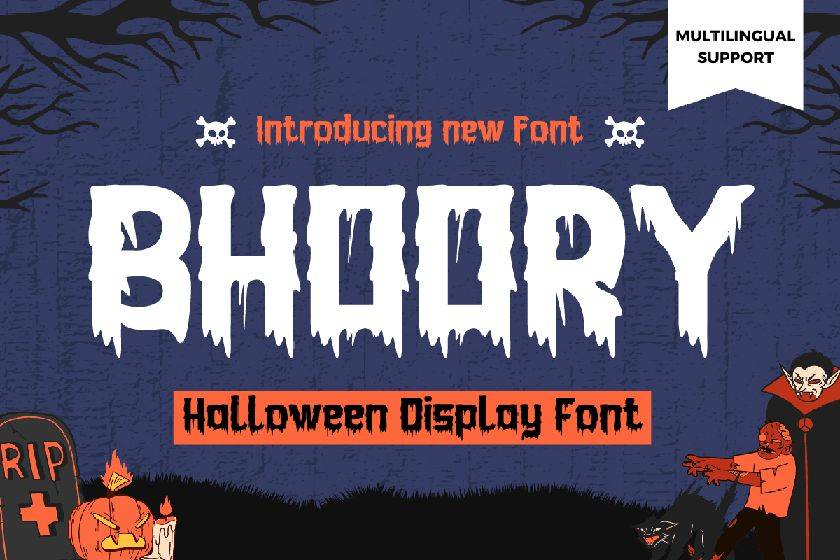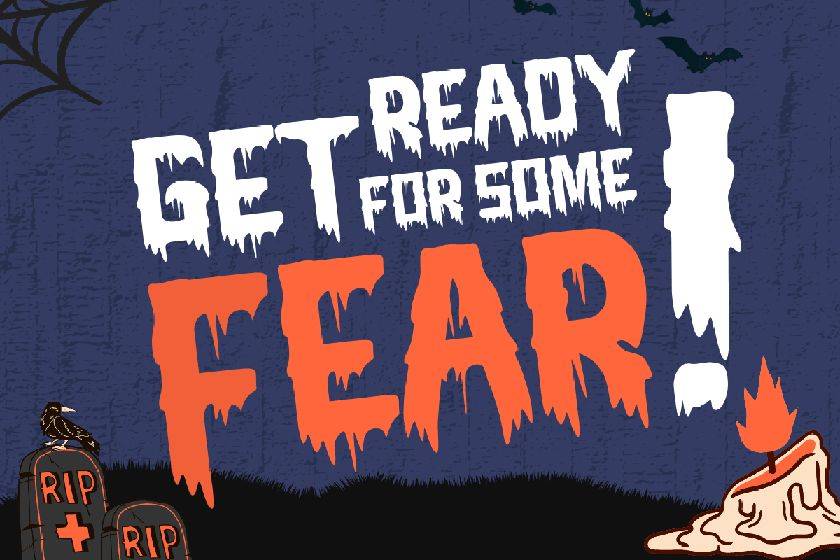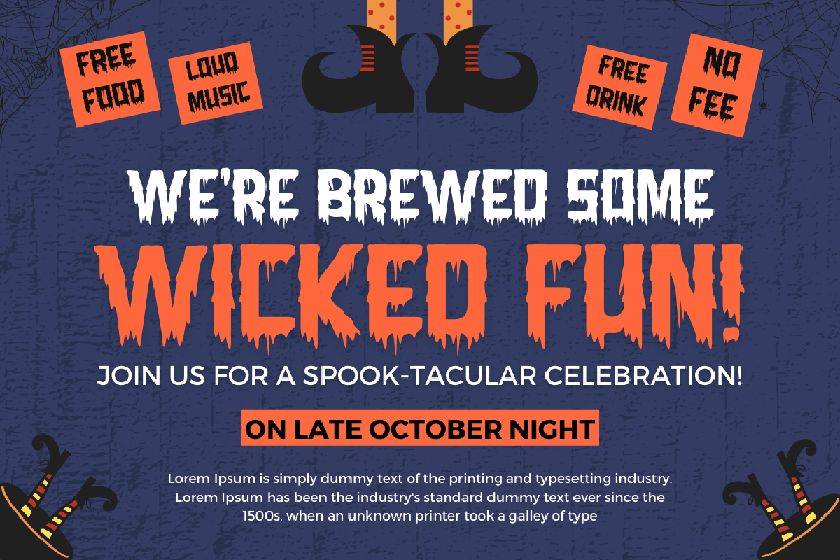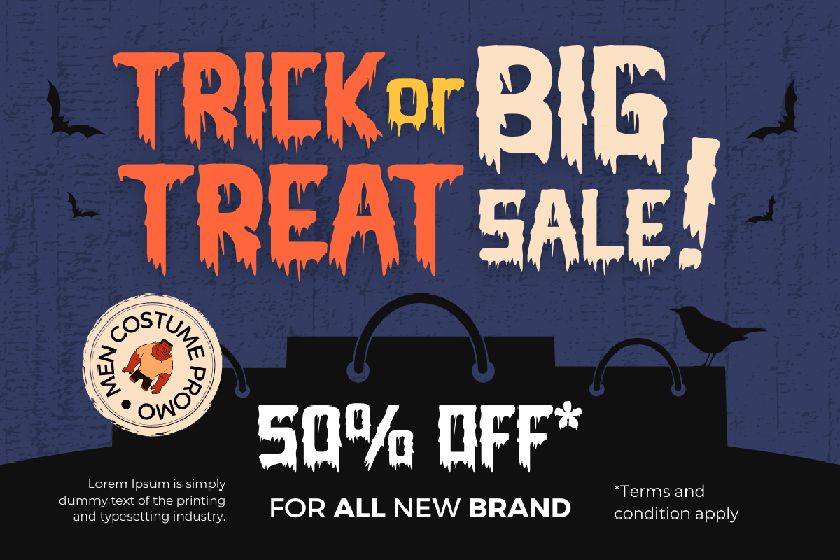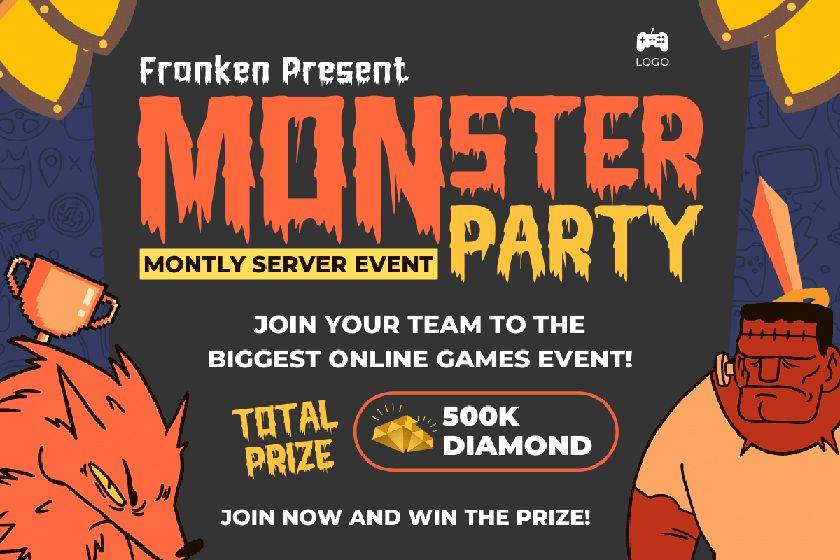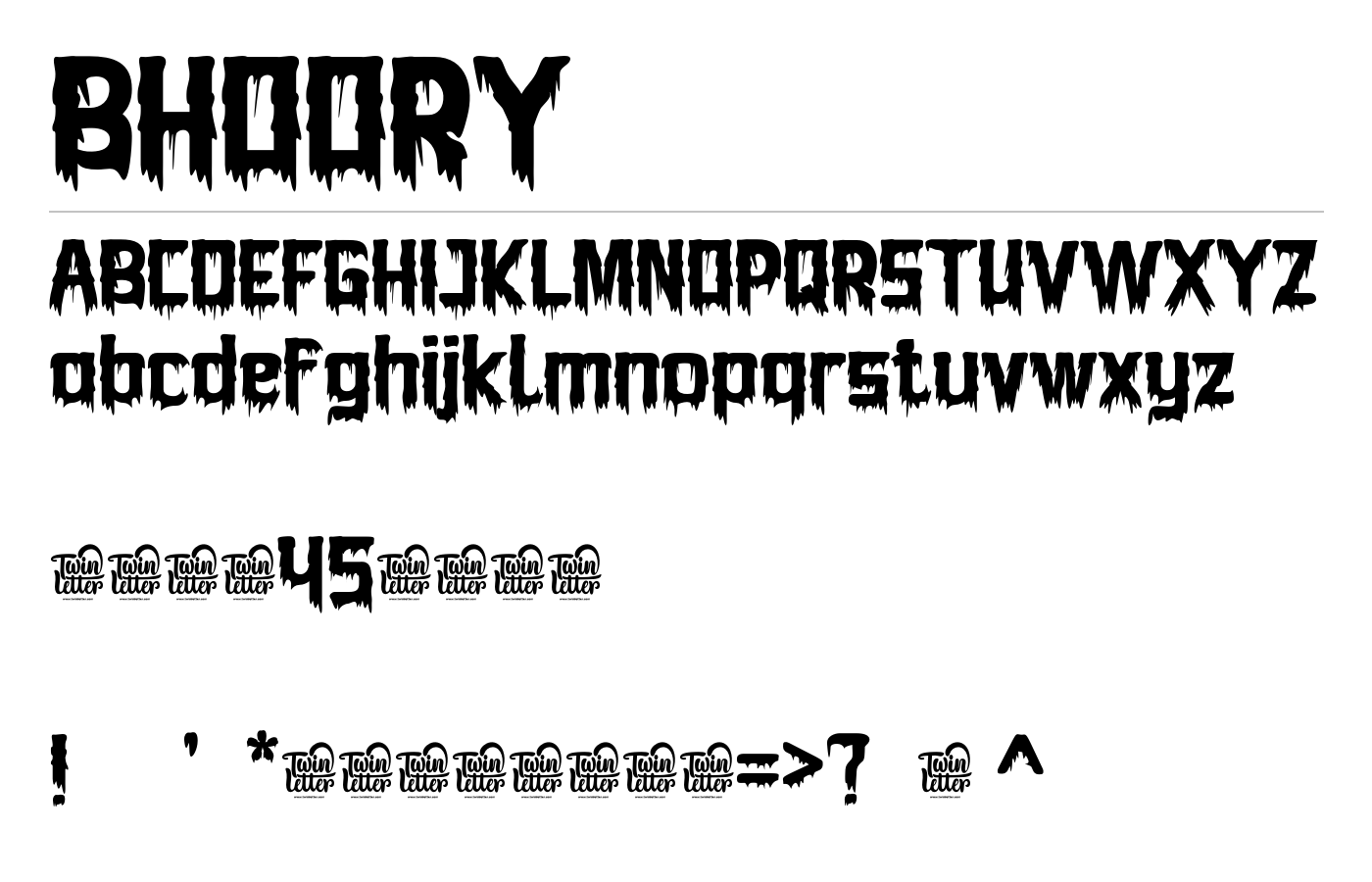
Bhoory is a bold, condensed display font with a dripping, eerie effect that creates a spooky and dramatic atmosphere. Its heavy weight and jagged, uneven edges make it ideal for Halloween-themed designs, horror posters, and any project needing a striking, high-impact style with a playful yet unsettling vibe. This font works best in headlines or logos where attention-grabbing, thematic lettering is essential.
Bhoory Font